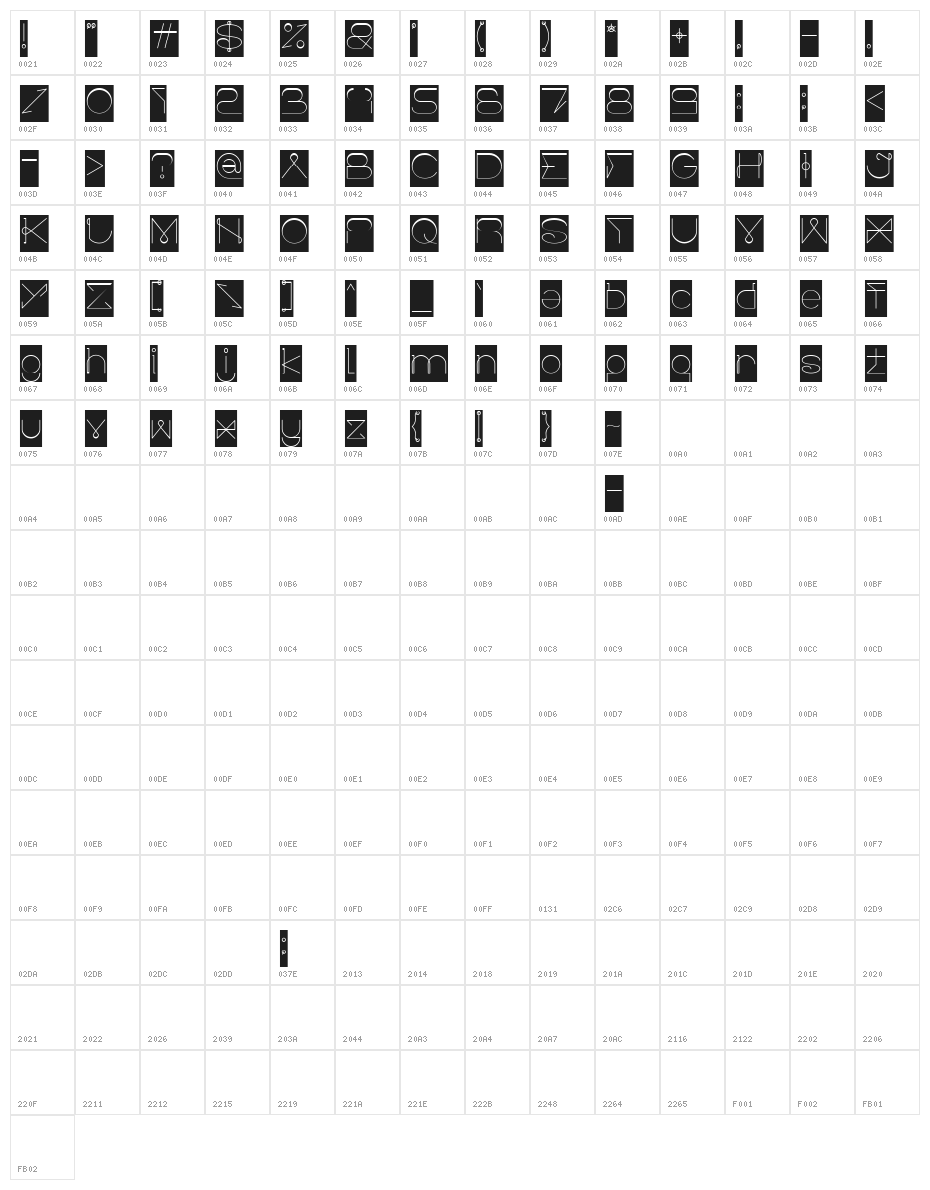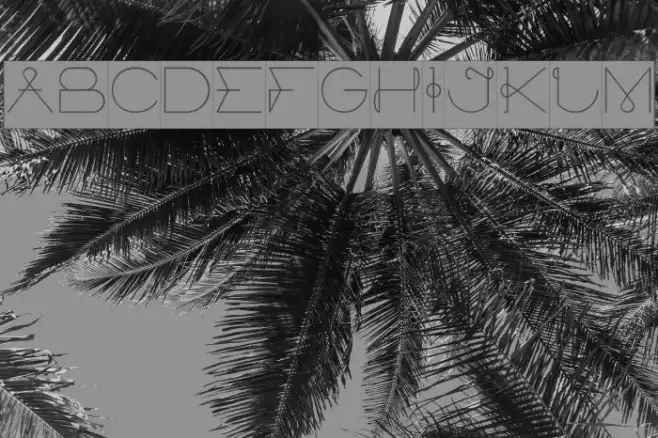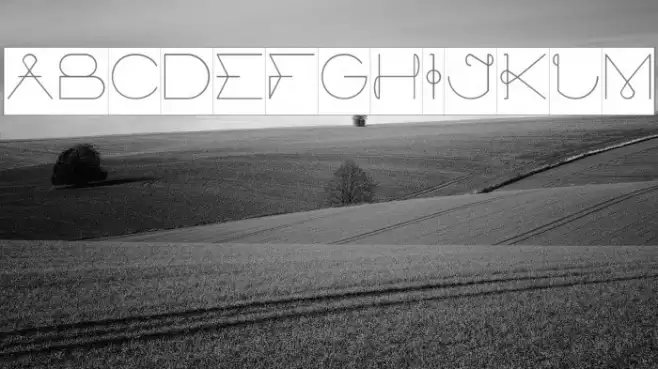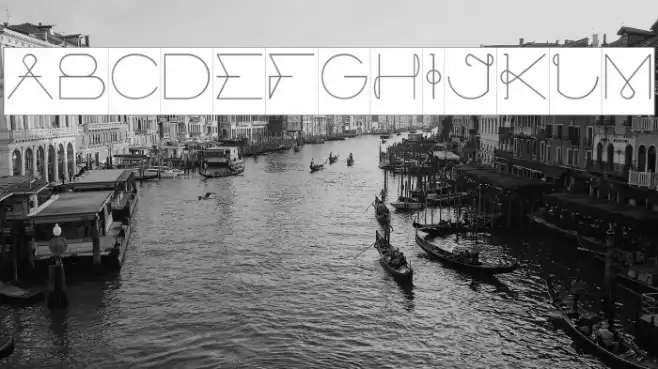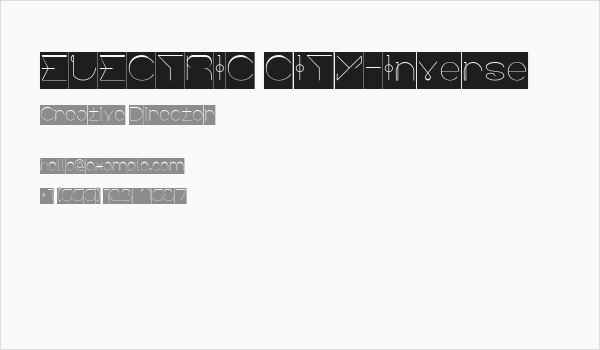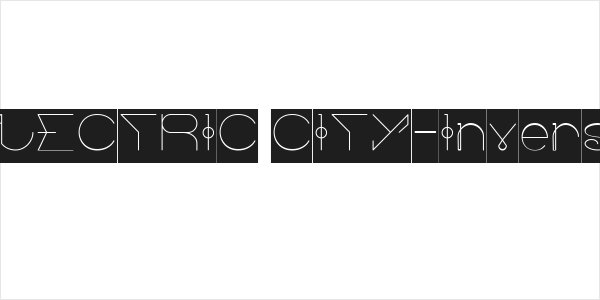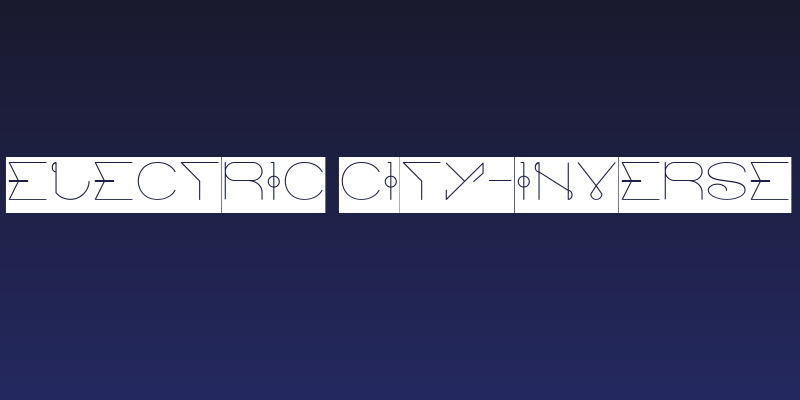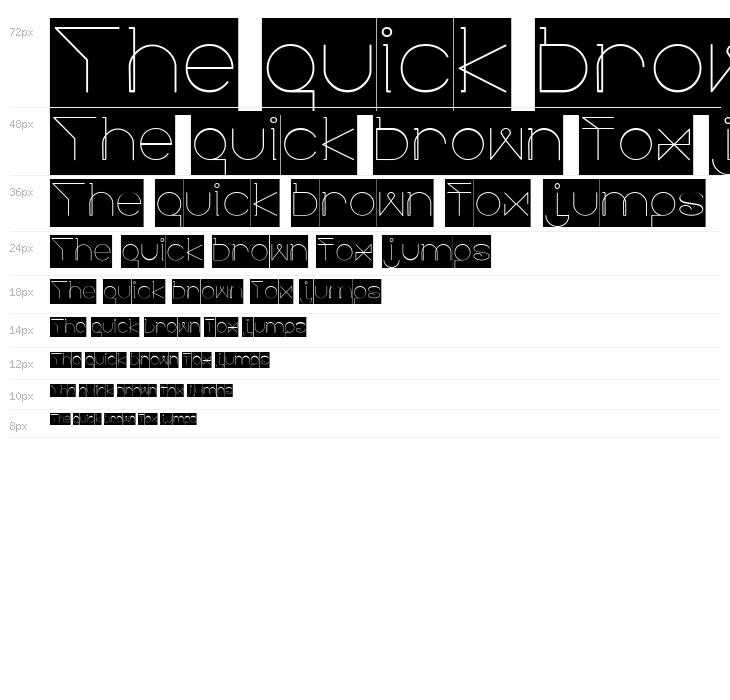
ELECTRIC CITY-Inverse Font
ELECTRIC CITY-Inverse Description
This font features a futuristic and geometric design with a unique blend of angular and circular elements. The uppercase letters are characterized by sharp angles and straight lines, while the lowercase letters incorporate more curves, creating a dynamic contrast. The numerals and special characters maintain this geometric style, with some characters featuring distinctive cutouts and intersections. The overall appearance is sleek and modern, making it suitable for projects that require a contemporary and edgy look.
| Proposed Projects | Ideal for tech branding, sci-fi posters, modern art installations, and digital interfaces. |